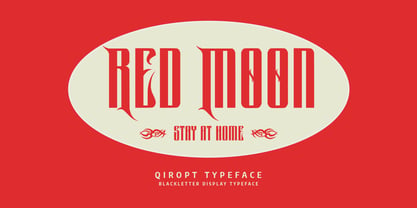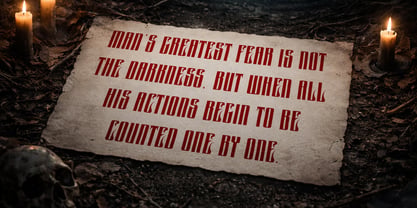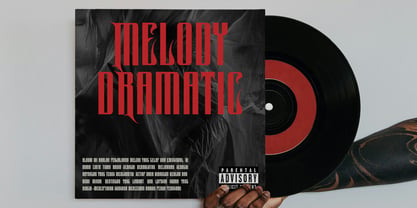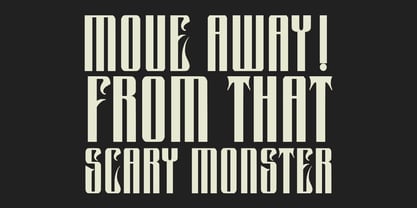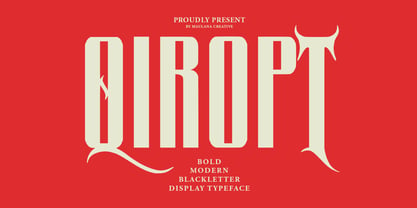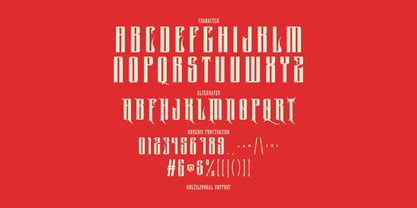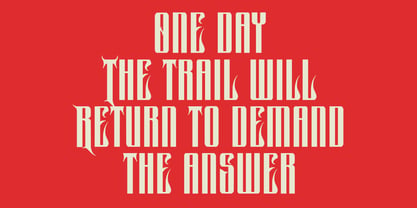
MC Qiropt
von Maulana Creative
Die Schriftfamilie MC Qiropt wurde von Gilang Maulana entworfen und von Maulana Creative veröffentlicht. MC Qiropt enthält 1 Stile. Mehr über diese Familie
Unleash a dark, sophisticated edge with Qiropt, a bold modern blackletter typeface designed for maximum visual impact. Fusing the historical aggression of traditional Fraktur with sleek, contemporary geometric lines, Qiropt offers a unique "sharp-meets-smooth" aesthetic. This display font features tall, condensed letterforms and striking ornamental alternates that give your text a custom, hand-lettered feel. It is perfectly suited for heavy metal aesthetics, tattoo-inspired branding, edgy labels, horror movie, and dramatic album. Whether you're designing for a "Scary Monster" or a "Melody Dramatic," Qiropt provides the perfect balance of medieval soul and modern grit.
Designer: Gilang Maulana
Foundry: Maulana Creative